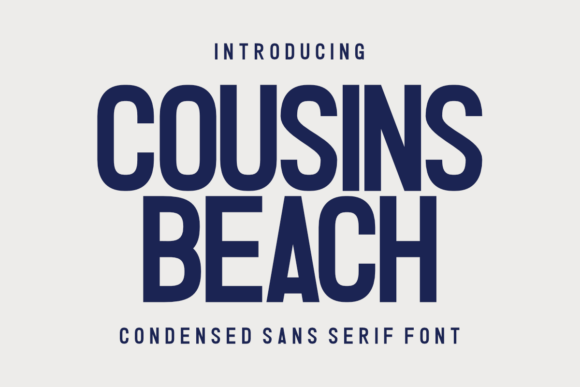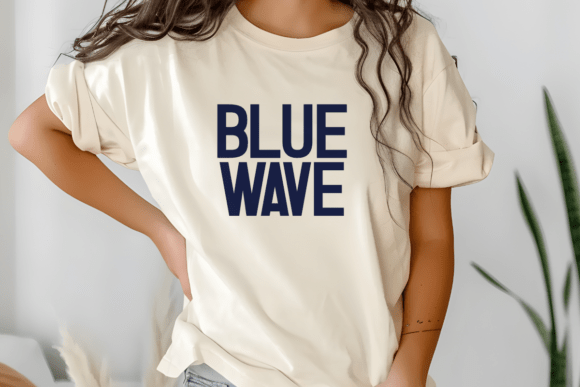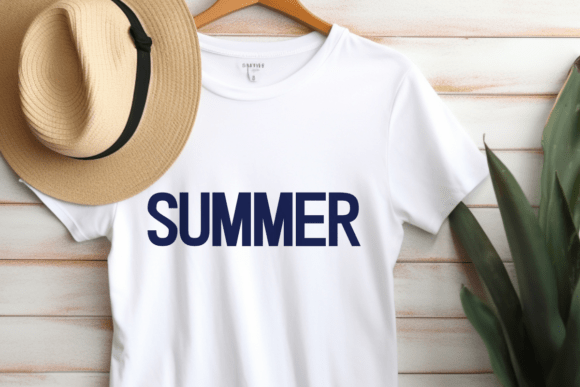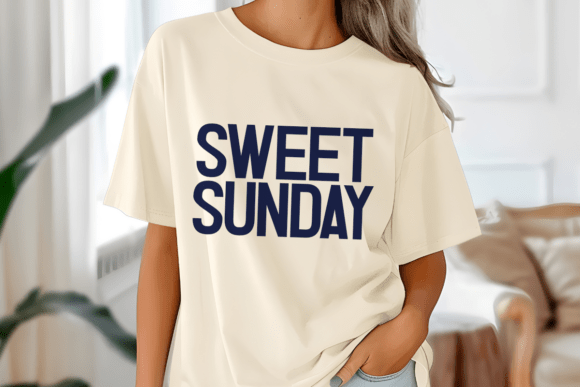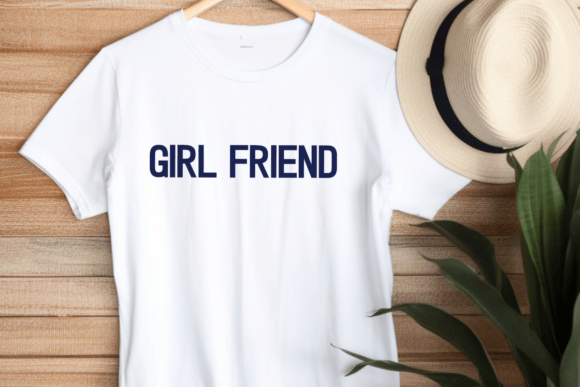
Cousins Beach Font
Cousins Beach is a modern condensed sans serif font with a stunning vintage feel. It’s perfect for logos, t-shirts, mugs, invitations, greeting cards, branding, posters, packaging, signs, cutting boards, printables, crafting, and other designs. Whatever your creative needs are, Cousins Beach is the perfect choice for a modern yet simple design!